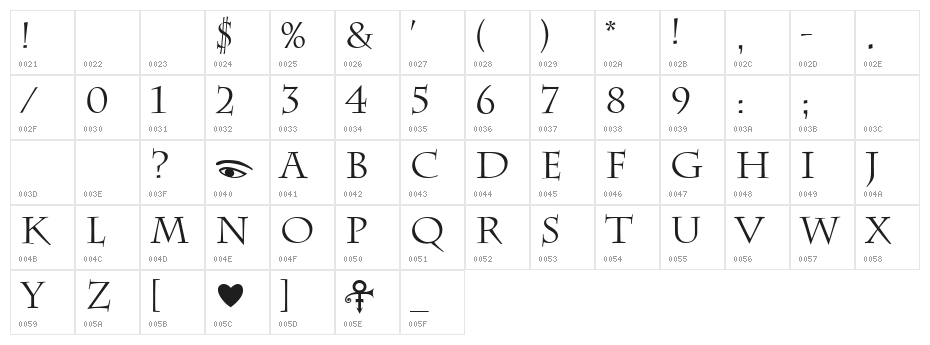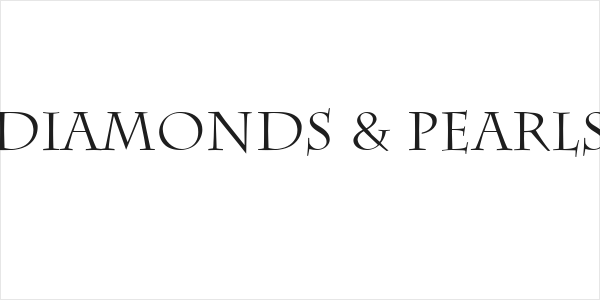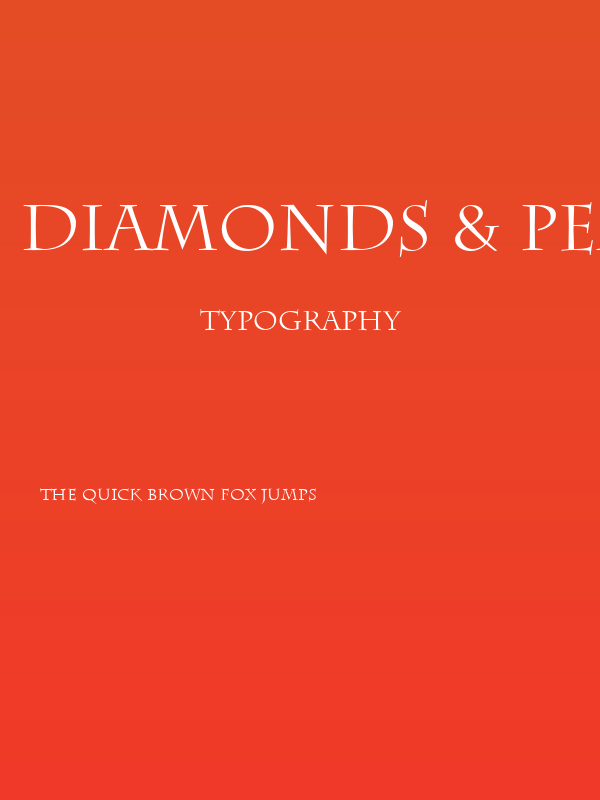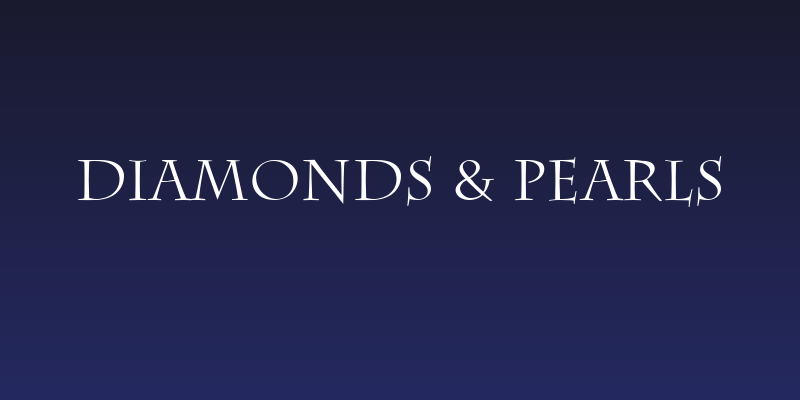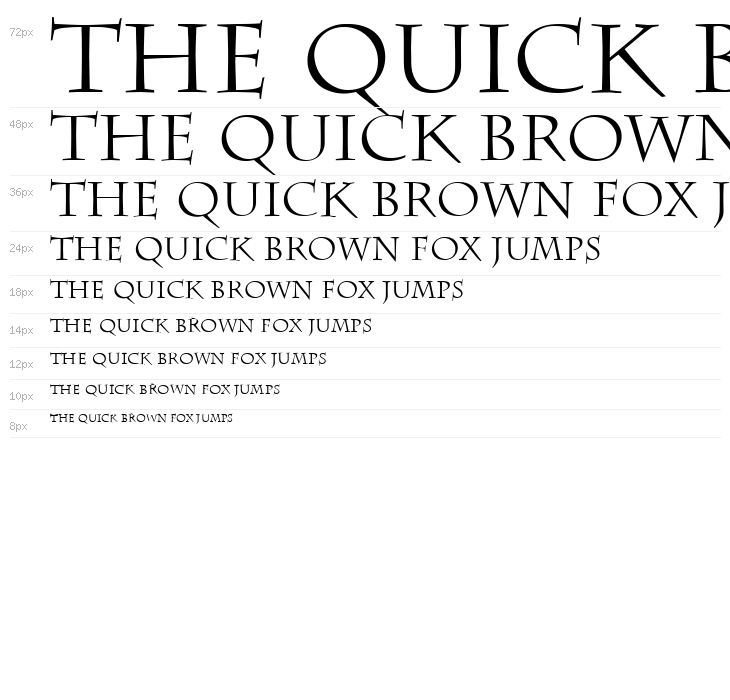
Diamonds & Pearls Font
Diamonds & Pearls Description
This font exudes a classic elegance with its sharp, pointed serifs and high contrast between thick and thin strokes. The uppercase letters are particularly striking, with a refined and sophisticated appearance that commands attention. The lowercase letters maintain a consistent style, offering a harmonious balance between readability and aesthetic appeal. The numerals are well-proportioned, complementing the overall design. Special characters are crafted with the same attention to detail, ensuring versatility across various applications. This font is ideal for projects that require a touch of sophistication and timeless beauty.
| Use Case | Headlines, Logos, Editorial design |
| Proposed Projects | Ideal for luxury branding, editorial design, wedding invitations, and high-end product packaging. |